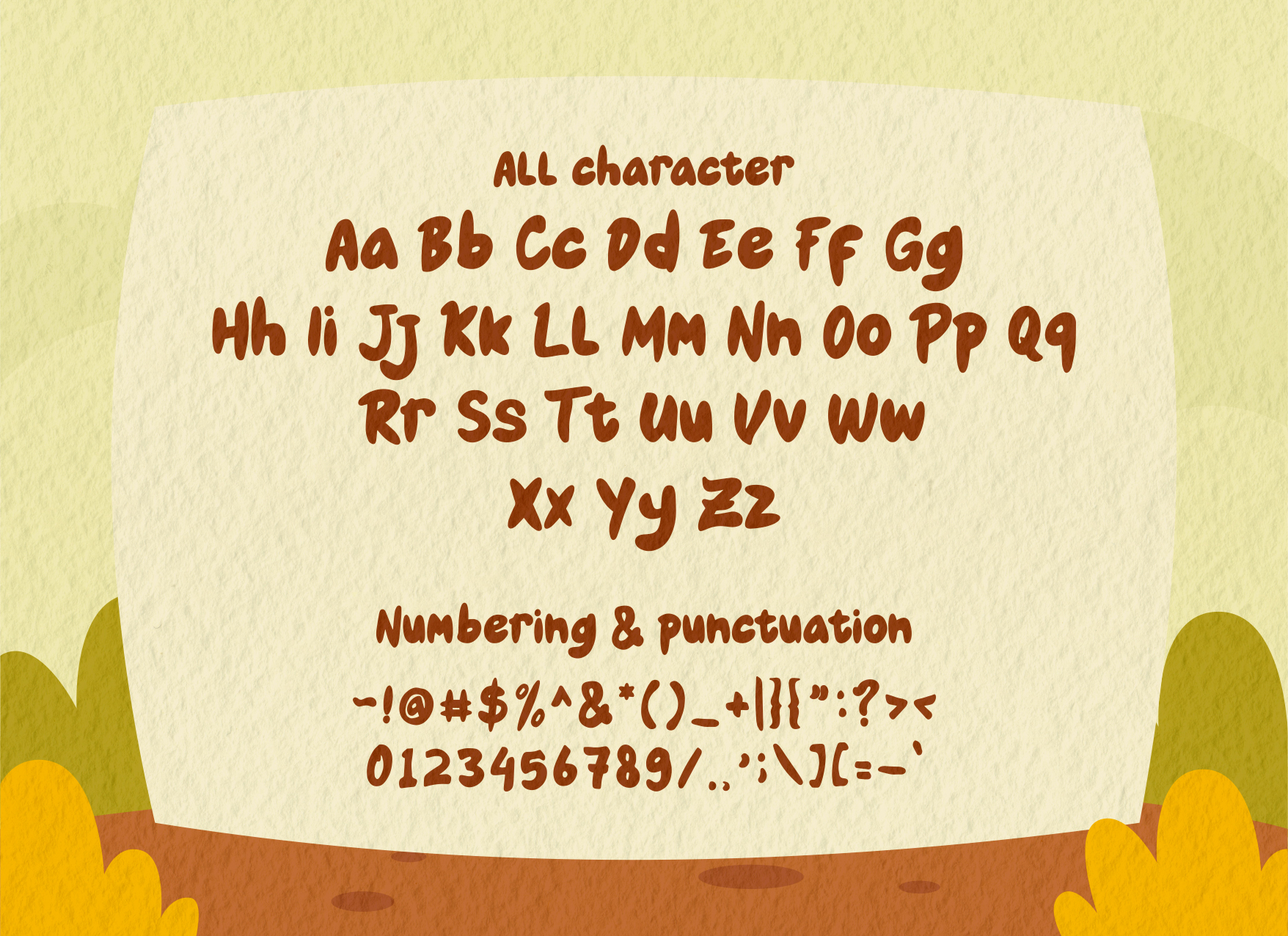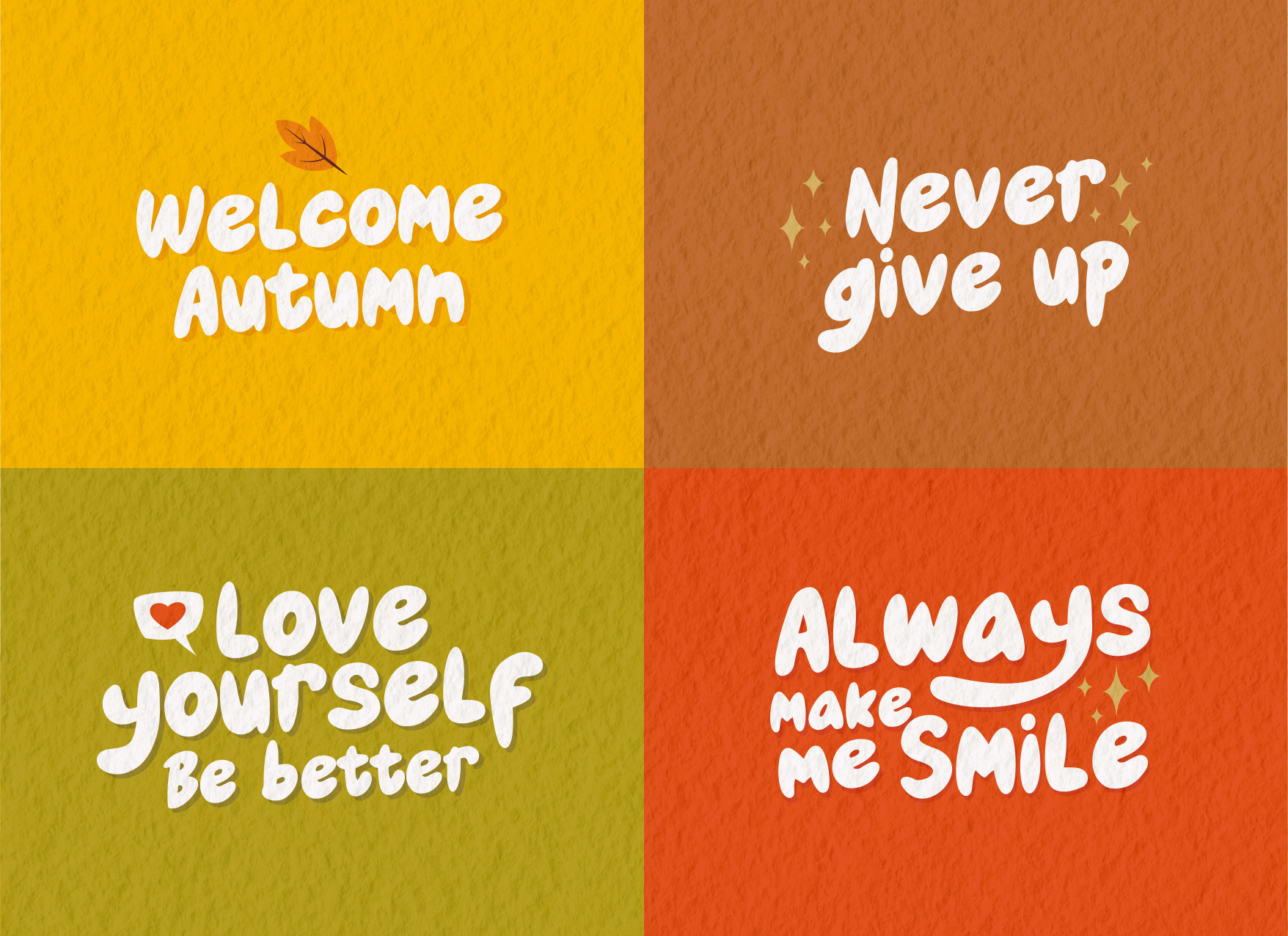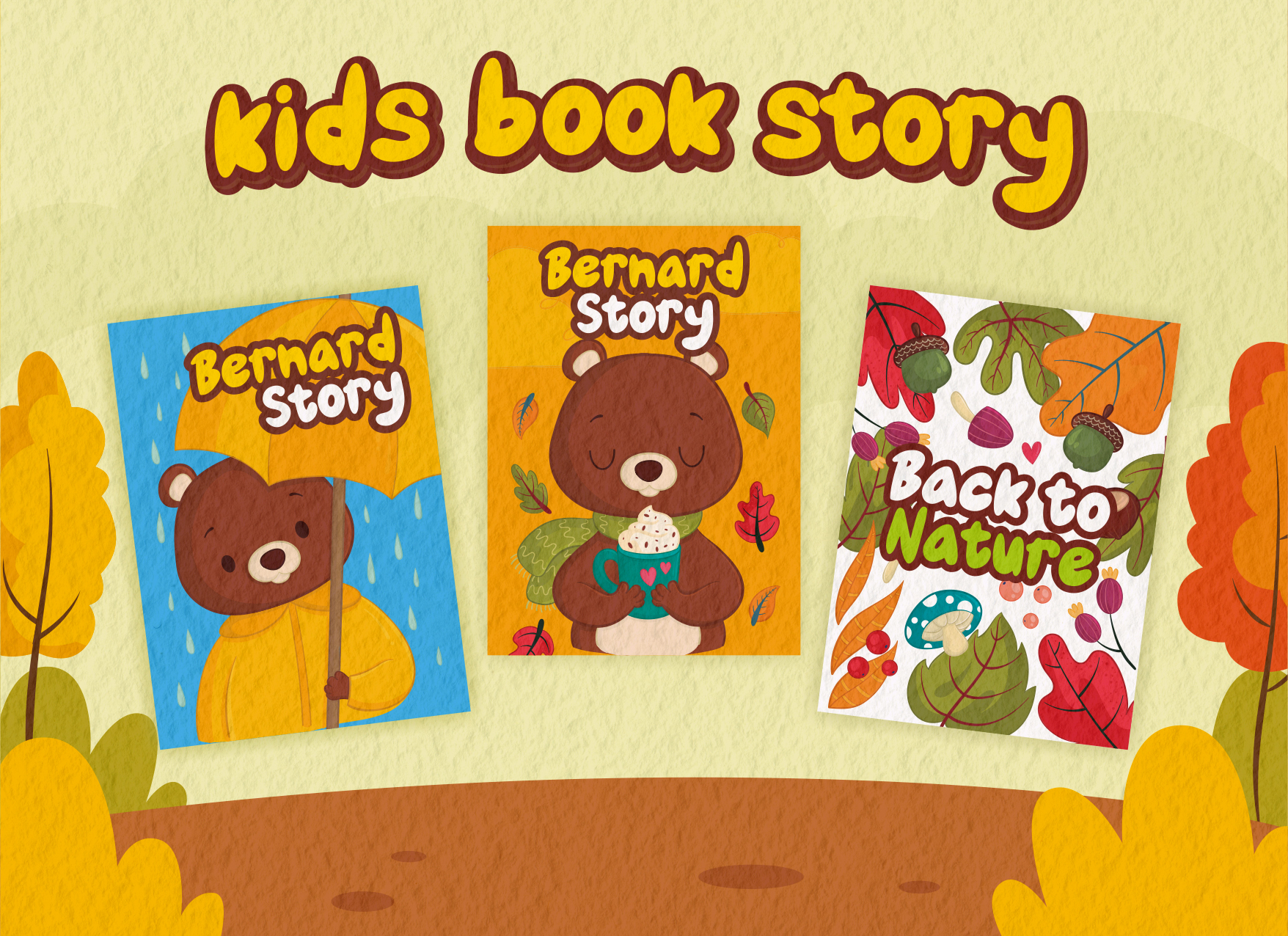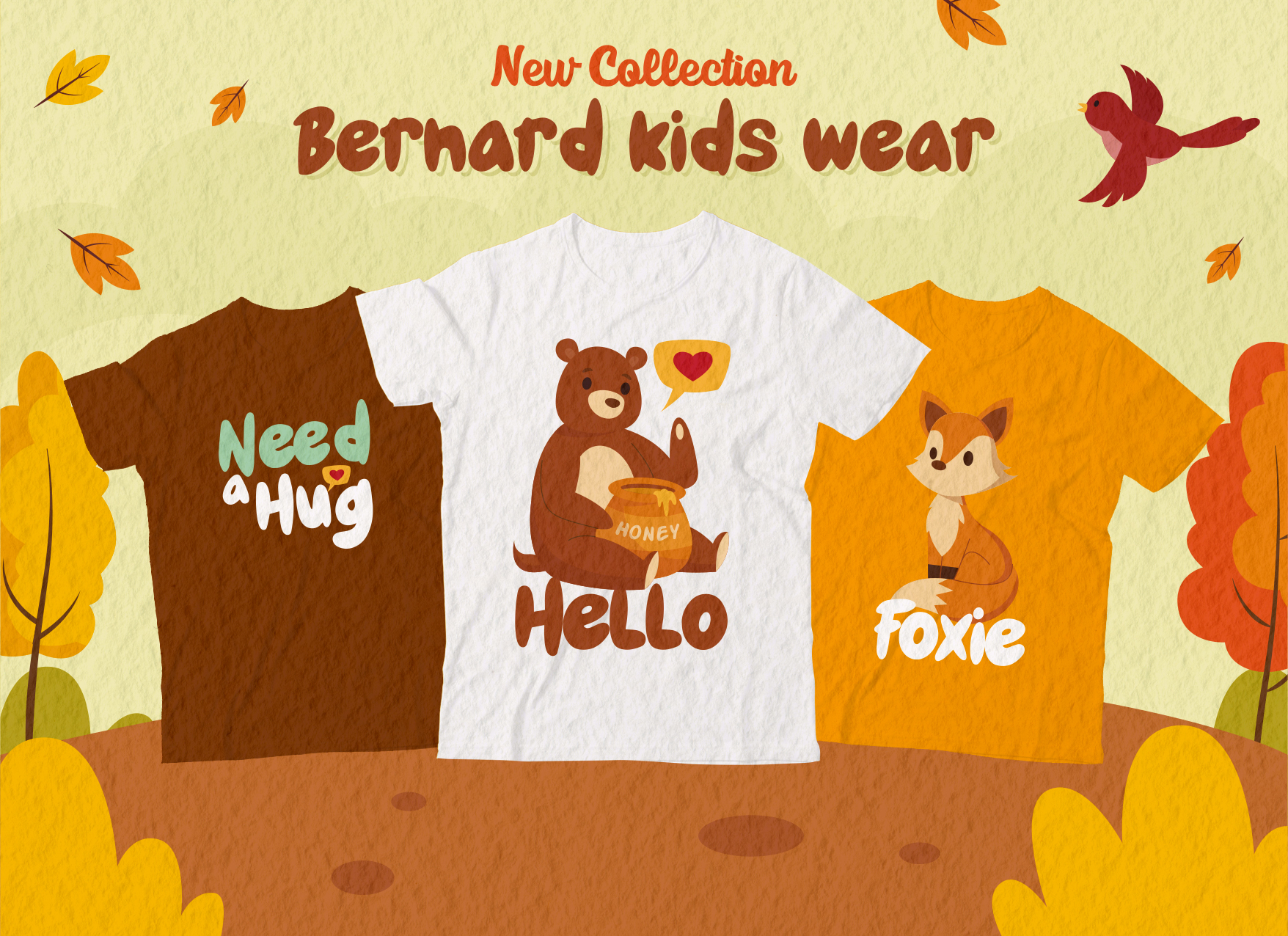
Honey Bear Display Font
This typeface which was created to bring a Fun and playful, Bold clean letters looks cute and funny. It’s perfectly for children books story, funny T-shirt, Kids meal package product design, logotypes with fun style and much other, where used comic cartoon or simple fun graphic. we make some design examples, so you can see how it works.